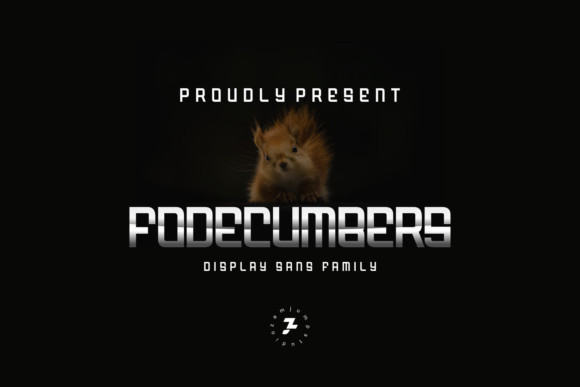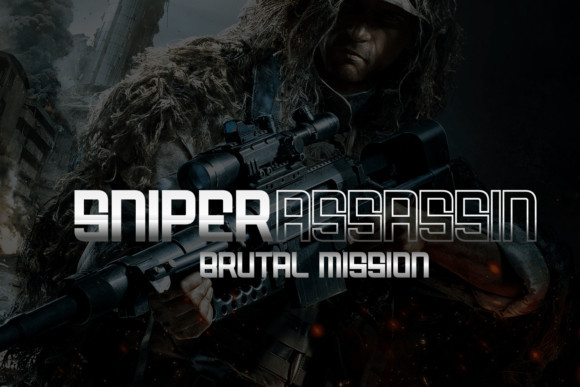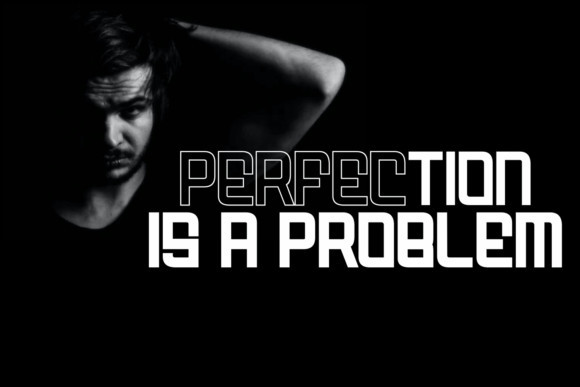
Fodecumbers Font
Fodecumbers is a simple yet dynamic display font. It is perfect for fashion branding or editorial designs. Add it confidently to your projects, and you won’t be disappointed.